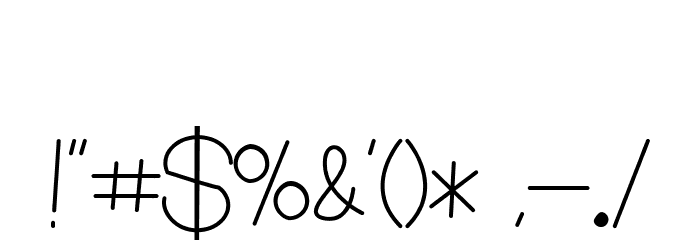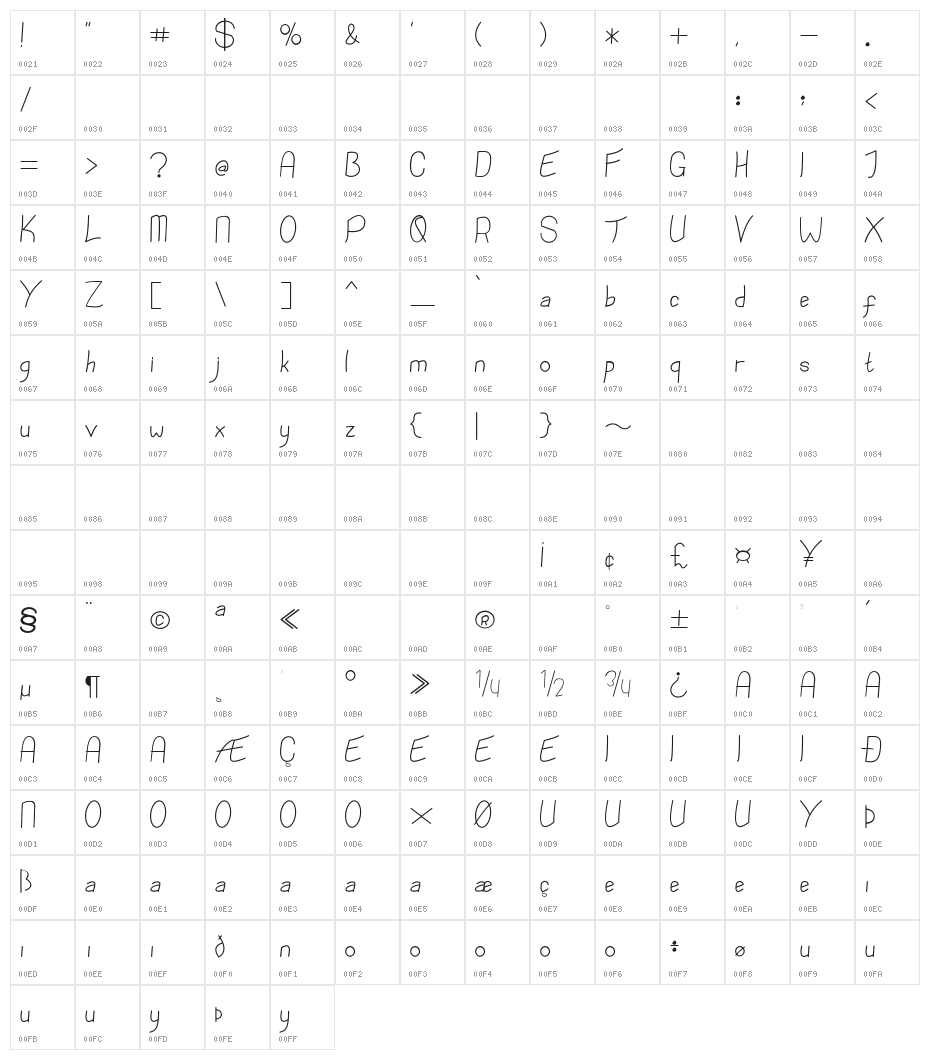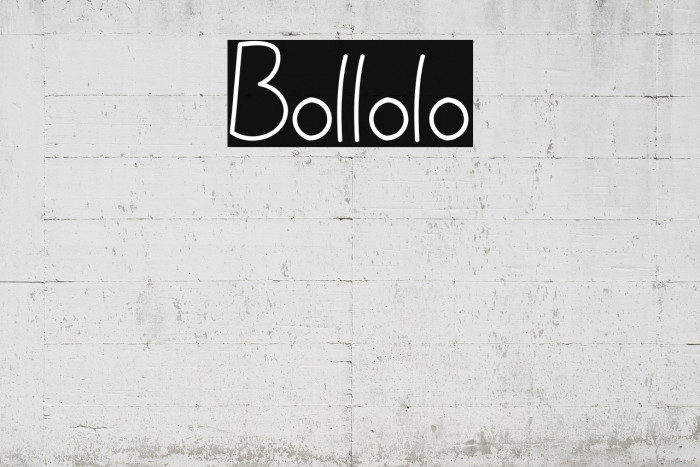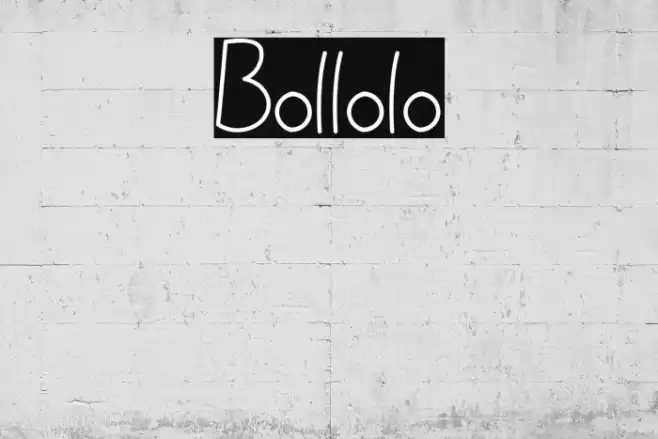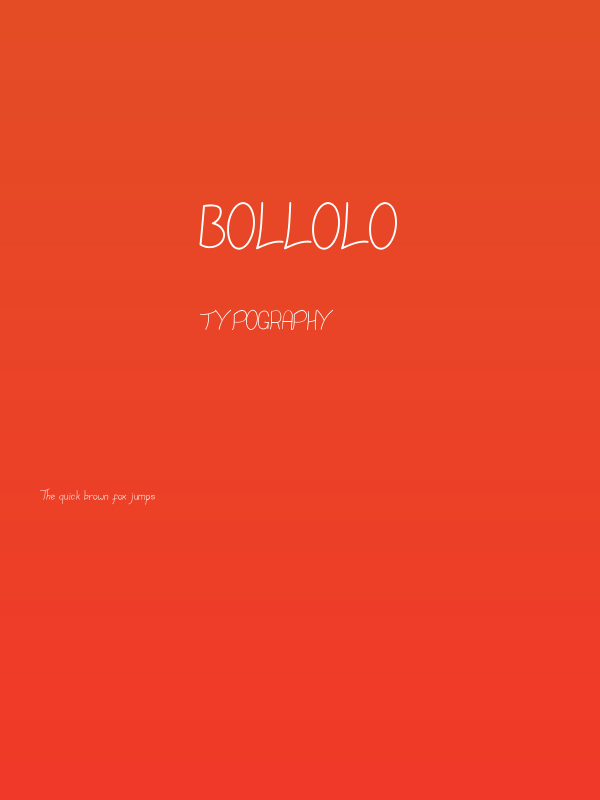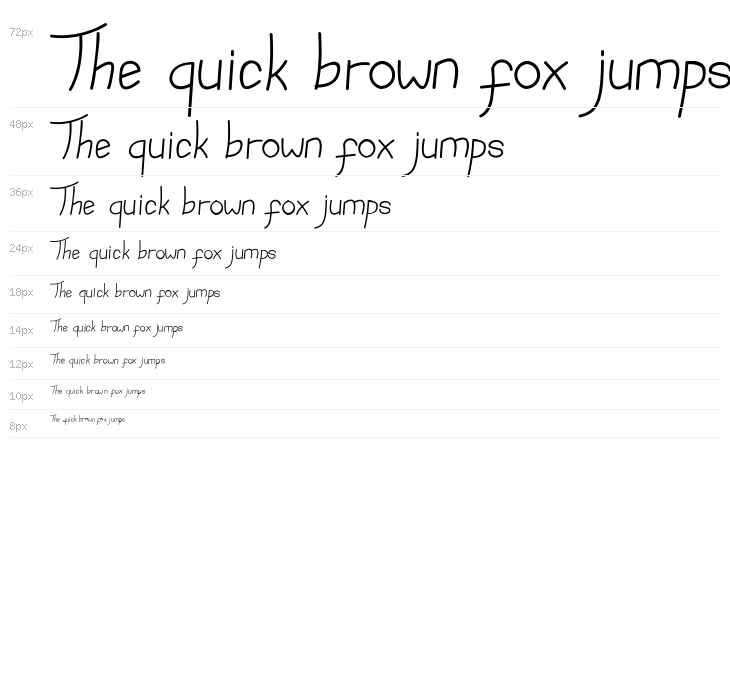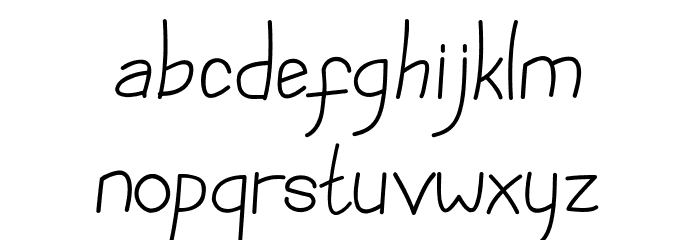
Bollolo Font
Bollolo Description
This font features a playful and whimsical design, characterized by its thin, elongated strokes and slightly irregular shapes. The uppercase letters are tall and narrow, with a unique flair that adds a touch of personality. The lowercase letters maintain a similar style, with a consistent flow that enhances readability. The numbers and special characters are designed to match the overall aesthetic, providing a cohesive look. This font's distinctive style makes it suitable for creative projects that require a fun and informal touch.
Bollolo
| Proposed Projects | Ideal for children's books, greeting cards, playful branding, and creative posters. |